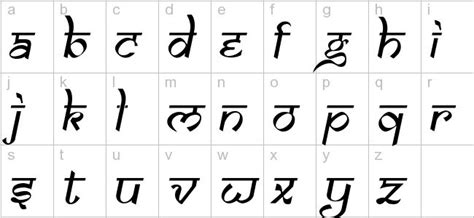
Tattoo Fonts Hindi Writing Style, Celtic fonts, graffiti fonts, blade fonts etc. Fortunately, we have many unique tattoo font styles for men and women, such as calligraphy, cursive, and traditional styles.
We have 1 free devanagari, hindi, tattoo font to offer for direct downloading · 1001 fonts is your favorite site for free fonts since 2001 Lettering styles include tribal, traditional sailor, blackletter, fancy, cursive, script, etc. Hindu tattoos are one of the most traditional styles we can find and have a long history behind them. Om stands for eternal peace.
See more ideas about hindi calligraphy, hindi calligraphy fonts, calligraphy fonts. Fortunately, we have many unique tattoo font styles for men and women, such as calligraphy, cursive, and traditional styles. Lettering styles include tribal, traditional sailor, blackletter, fancy, cursive, script, etc. Karma tattoo (कर्म) #karma #karmatattoo #karmaisabitch #karm #karmatattooaz #devnagari #calligraphy #artist #lovemyjob #karma #karmaart #karm #karam #sanskrit #believe #altimate.